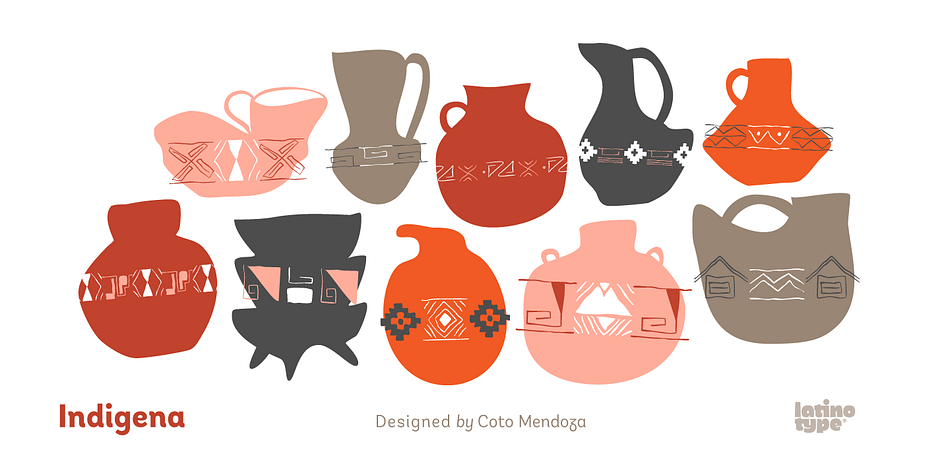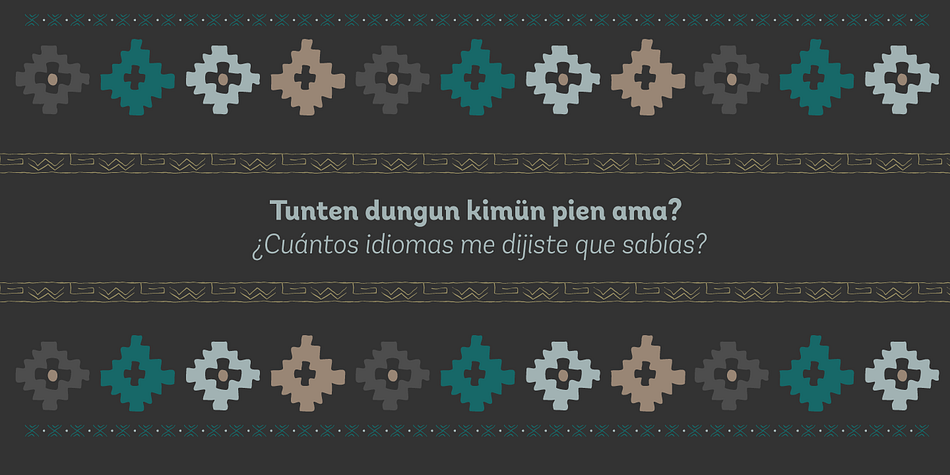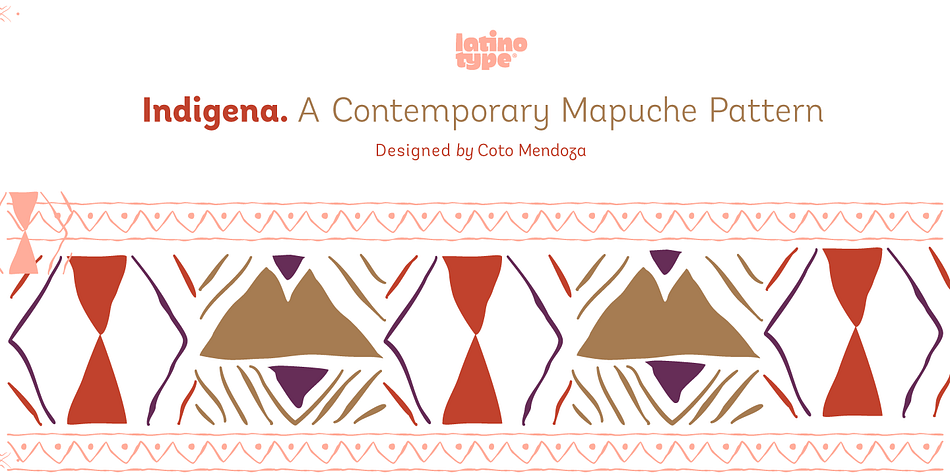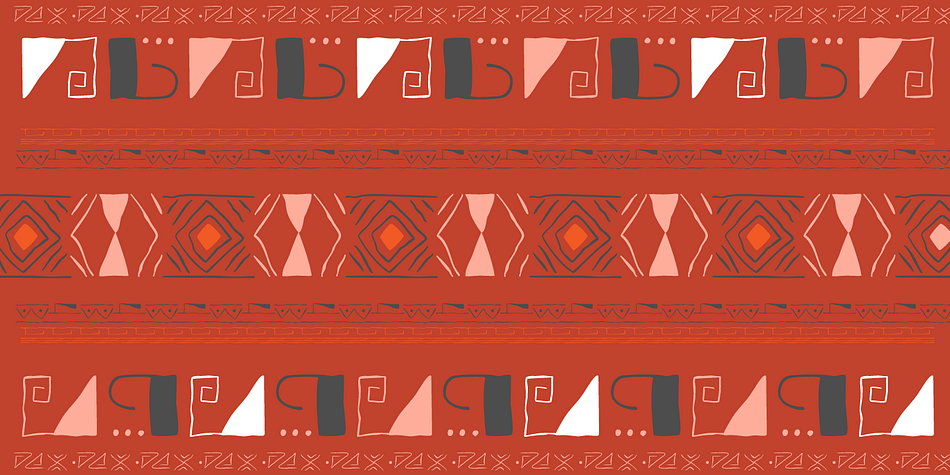
Indigena is a dingbat font published by Latinotype.
Mapuche means ‘man of the land’ and it is also the name of a group of indigenous inhabitants in South America. During the southern Winter solstice, between June 21 and June 24, the We Tripantu, the Mapuche New Year fest, takes place with a magical rite in the middle of the nature.
Indigena is a dingbat that remakes the artistic expression of the Mapuche people in Chile, recovering the handmade stroke they used in textiles and ceramics, but with a fresh look.
This dingbat is based on pre-Columbian iconographic drawings shown in the book Dibujos Indígenas de Chile (1929) by chilean art teacher Abel Gutiérrez. http://www.memoriachilena.cl/602/w3-article-86097.html